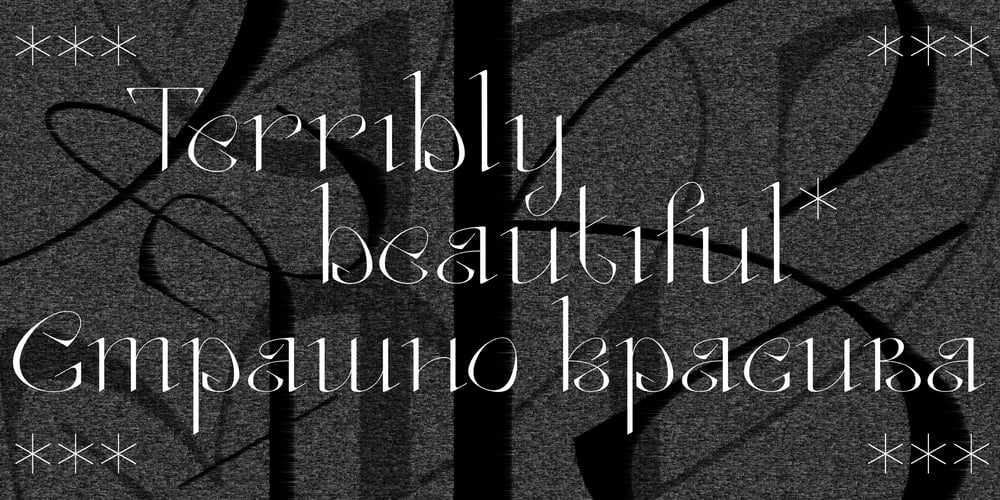
Stervella Font Family was designed by Tatiana Nazarova and published by Tatiana Nazarova. Stervella contains 1 styles and family package options. Elegant and prickly; smooth and sharp; beautiful, but evil – Stervella – display typeface. Its serifs resemble the twisting branches and thorny thorns of a blackthorn, trying to prick neighboring letters. This font is inspired by the forms of ancient Uncial, combining antique with pointed gothic writing.Изящная и колючая; плавная и острая; красивая, но злая – акцидентная Стервелла. Ее засечки напоминают извилистые ветви и колючие шипы терновника, стремящиеся уколоть соседние буквы. Этот шрифт вдохновлен формами старинного Унциала, совмещая в себе антикву с остроконечным готическим письмом.